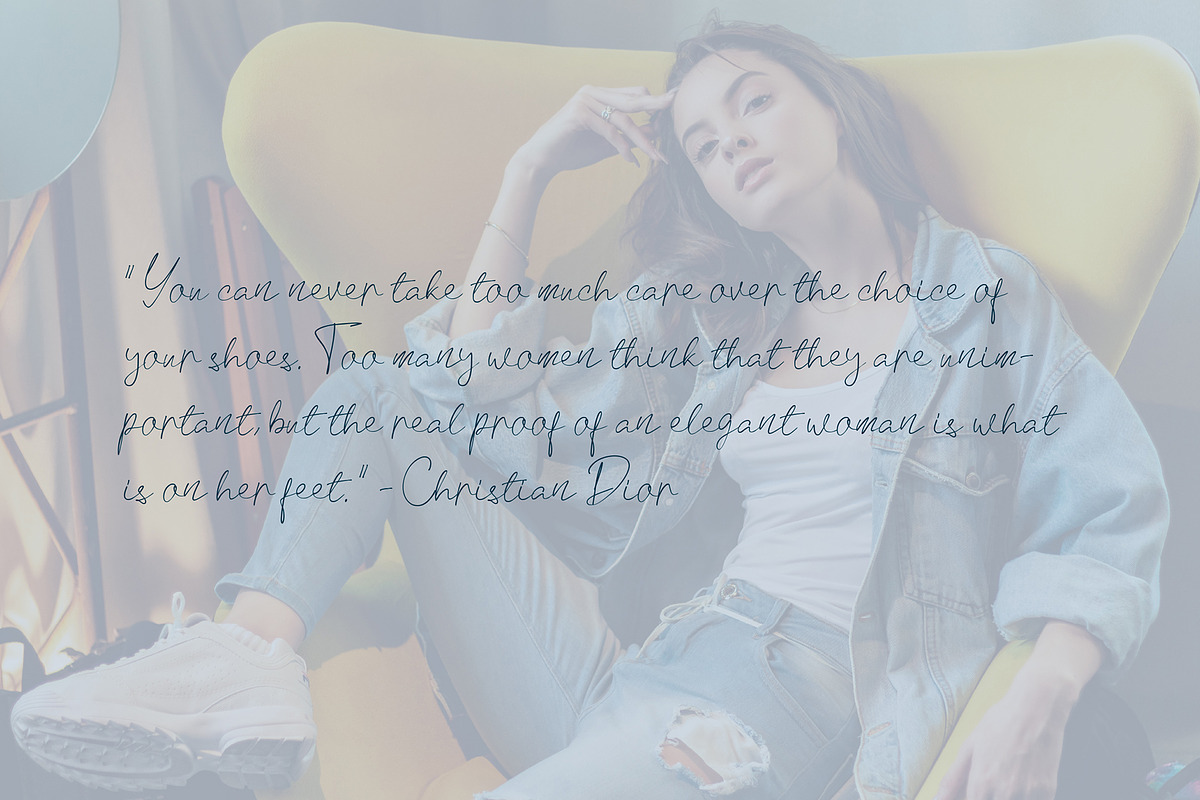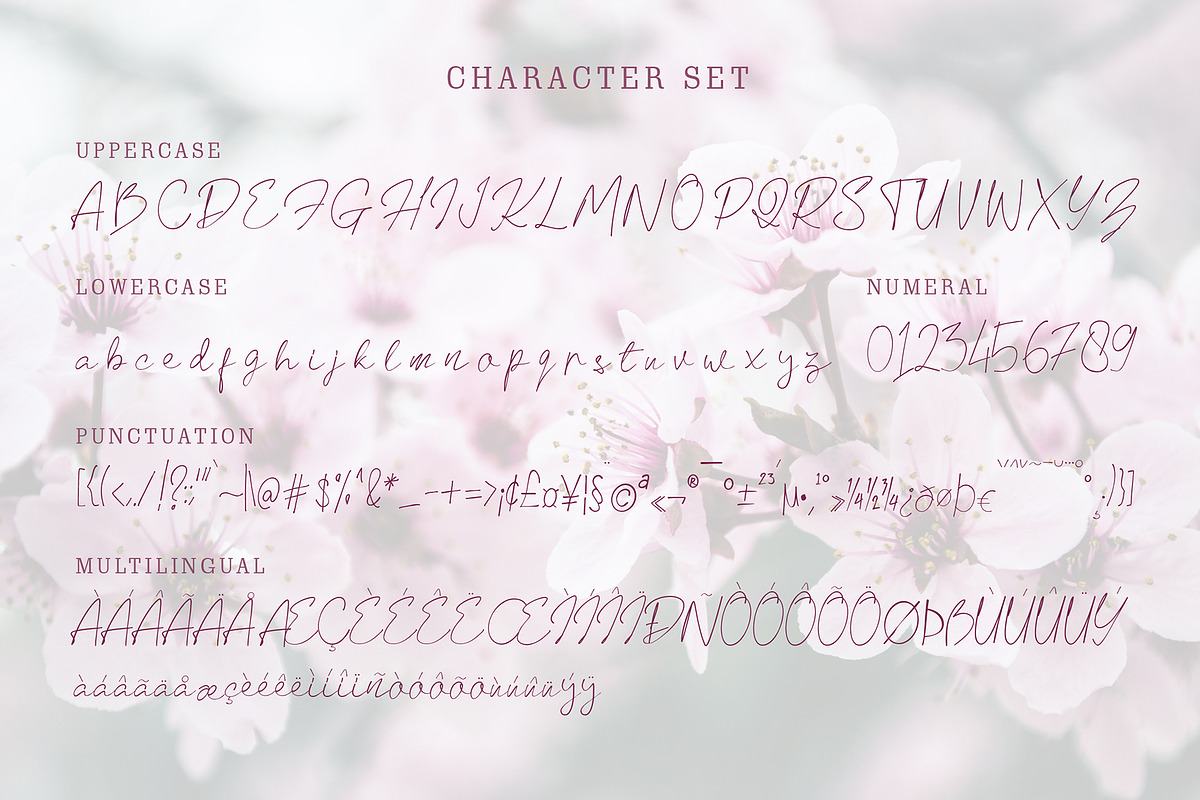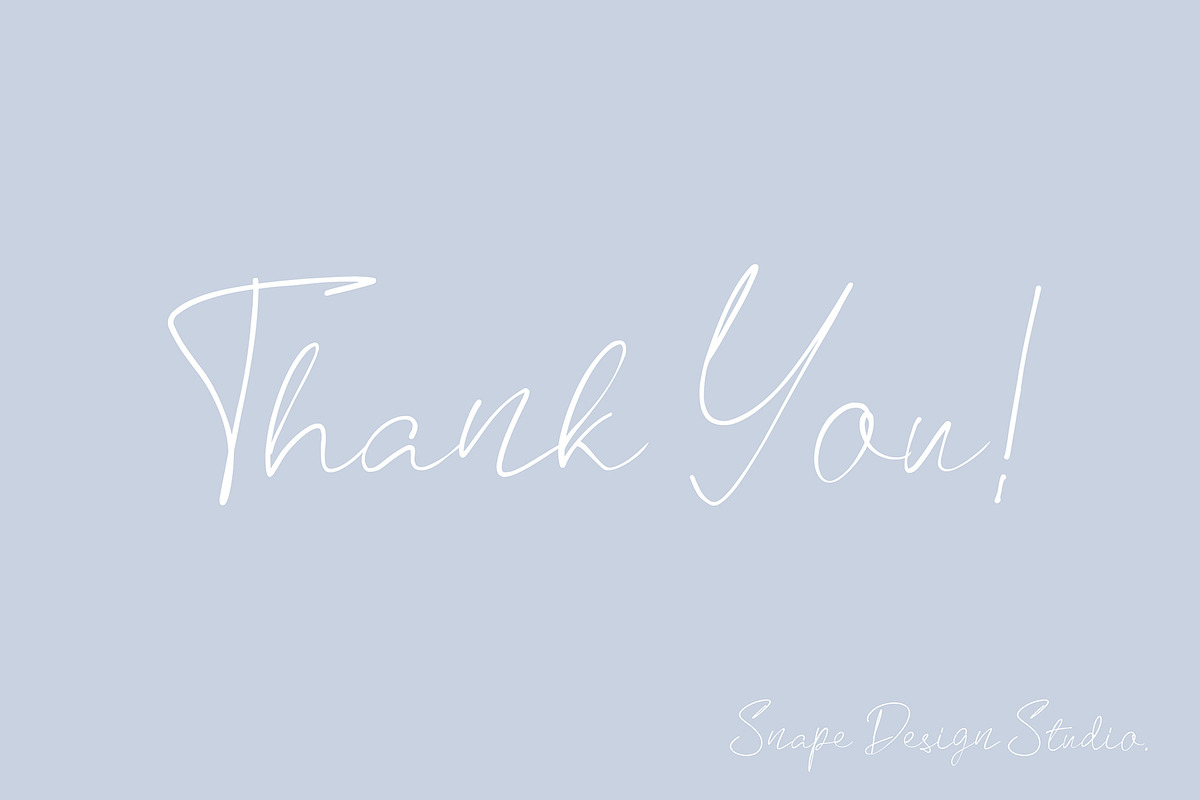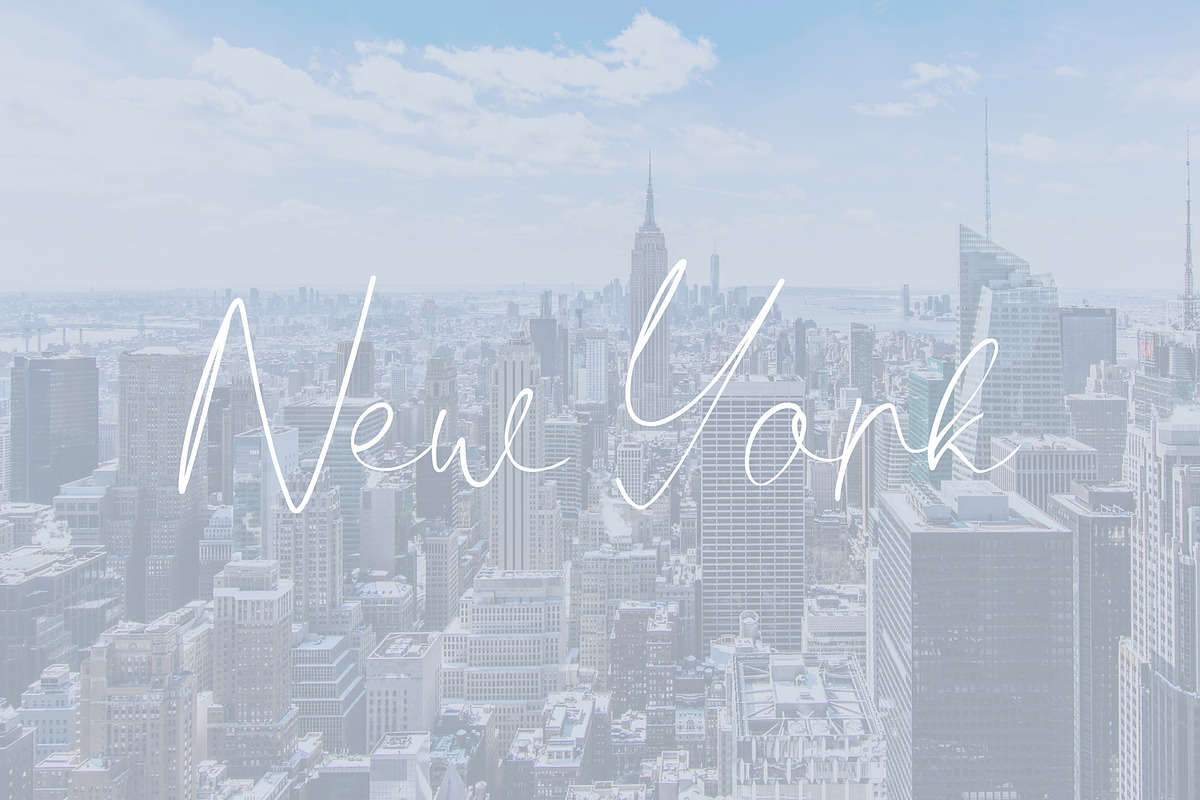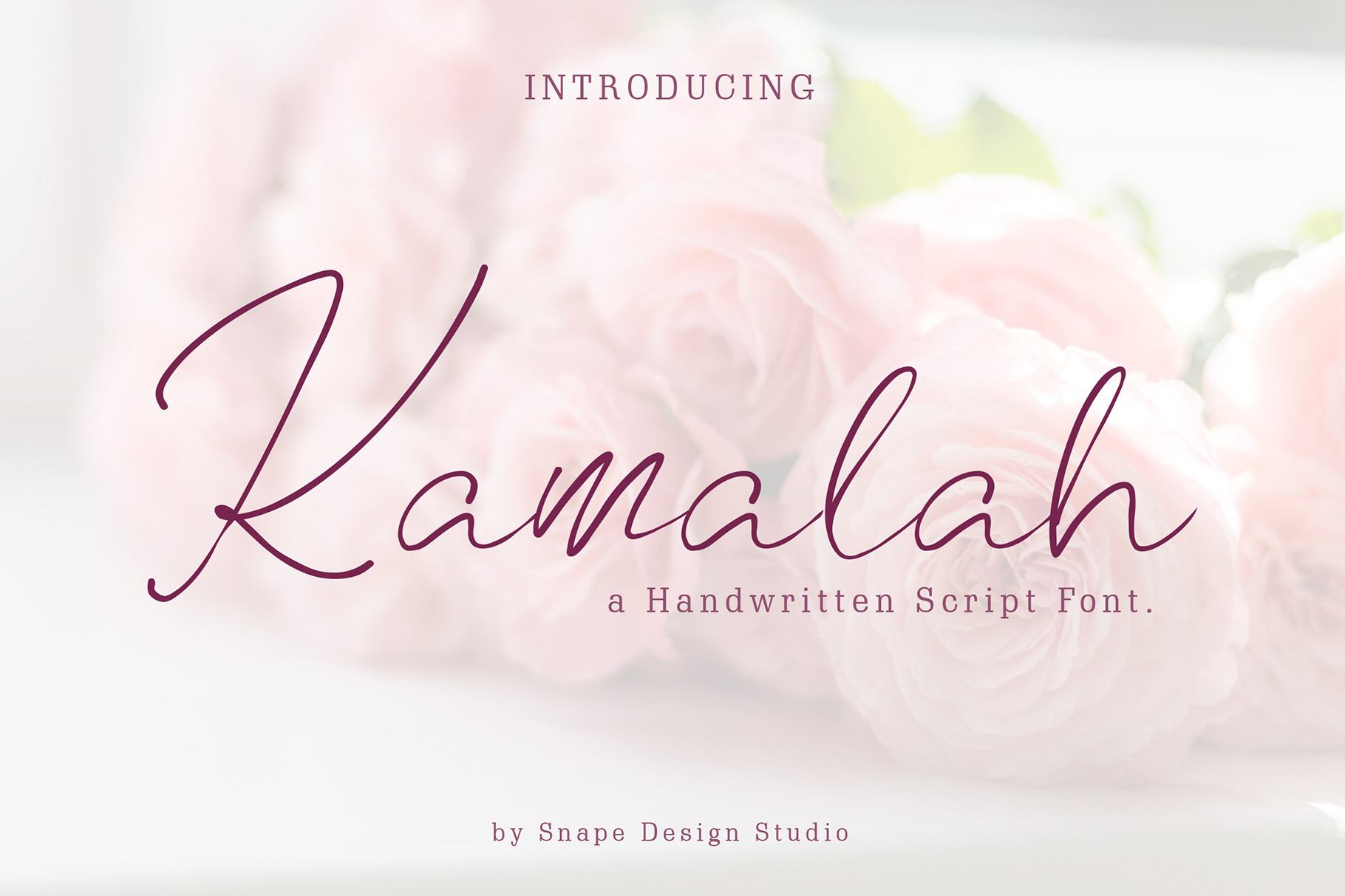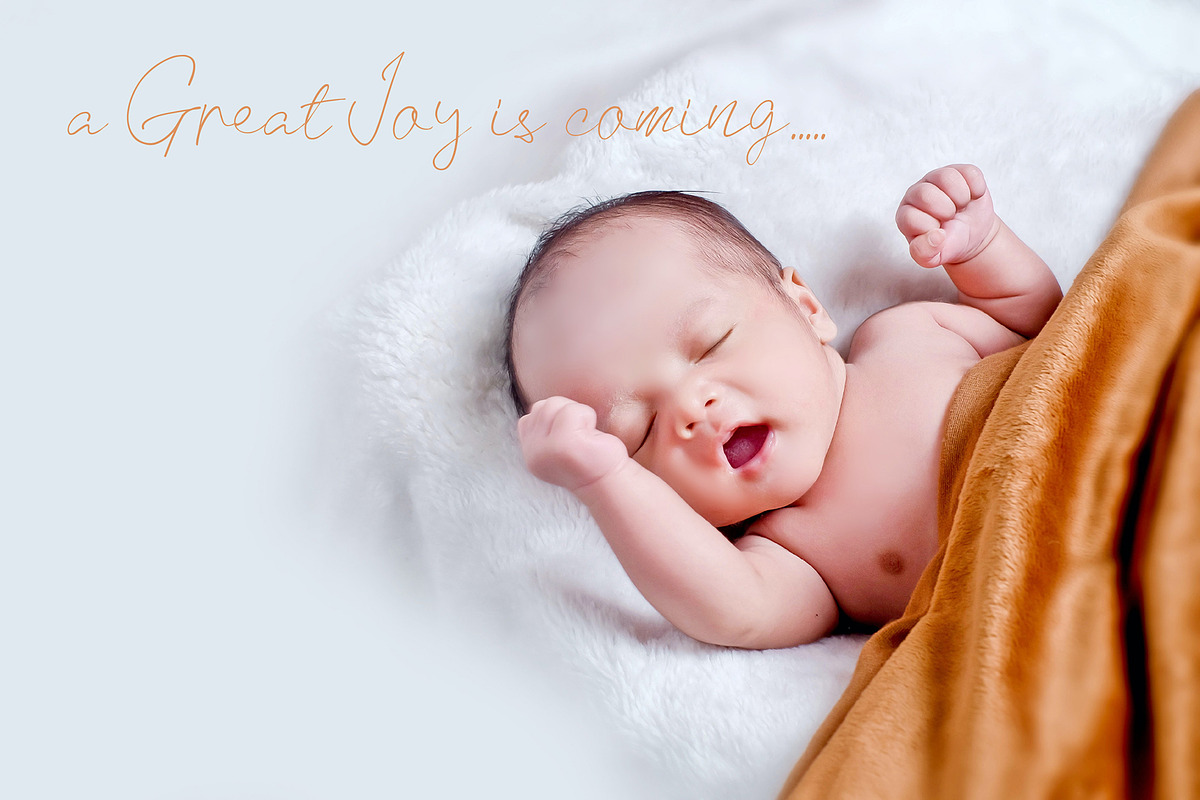
Kamalah - Handwritten Script Font
Kamalah is a handwritten script font. beauty and luxury look, great for any design needs: logo, branding, modern advertising design, logos, poster quote, book/cover Title, editorial design, website/blog, card, custom mug, pillow, t-shirts, and any hand-lettered needs.
Kamalah Font multilingual support: Afrikaans, Albanian, Catalan, Danish, Dutch, English, Estonian, French, Finnish, German, Icelandic, Indonesian, Italian, Malay, Norwegian, Portuguese, Spanish, Swedish, Zulu, and many more.